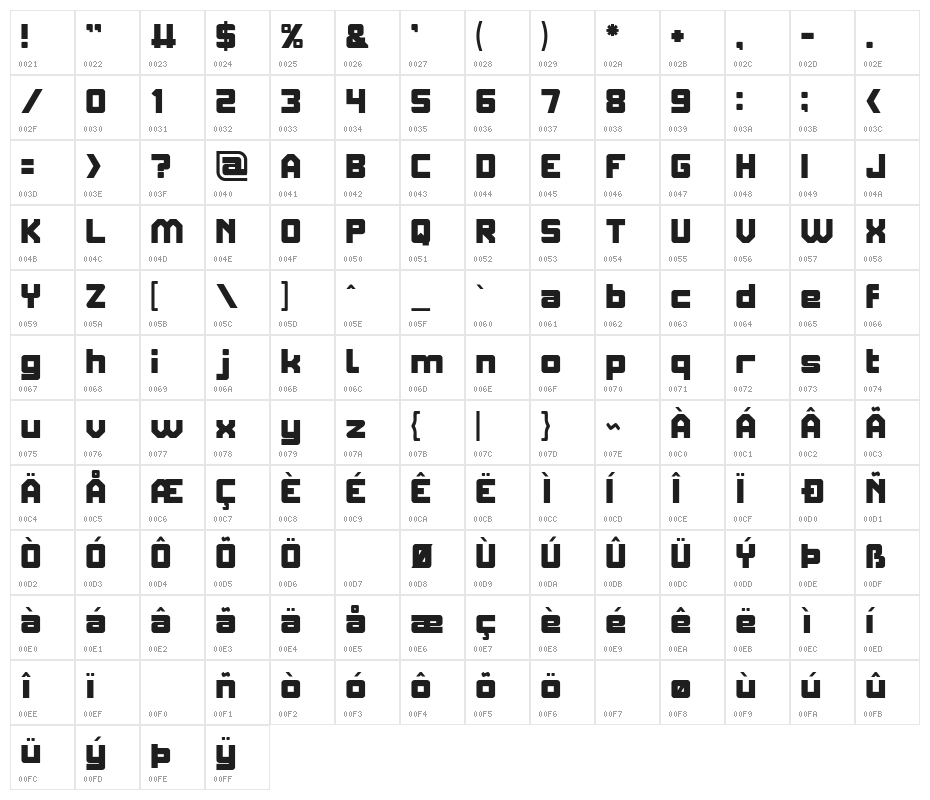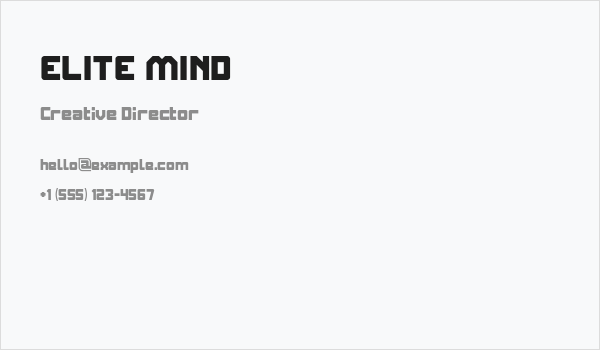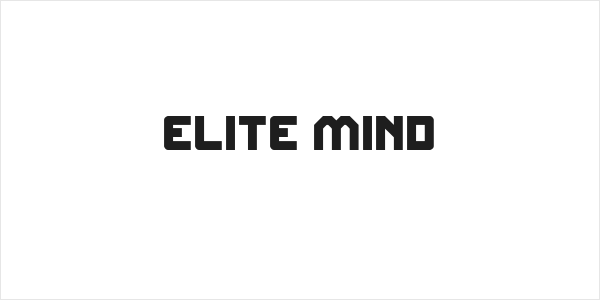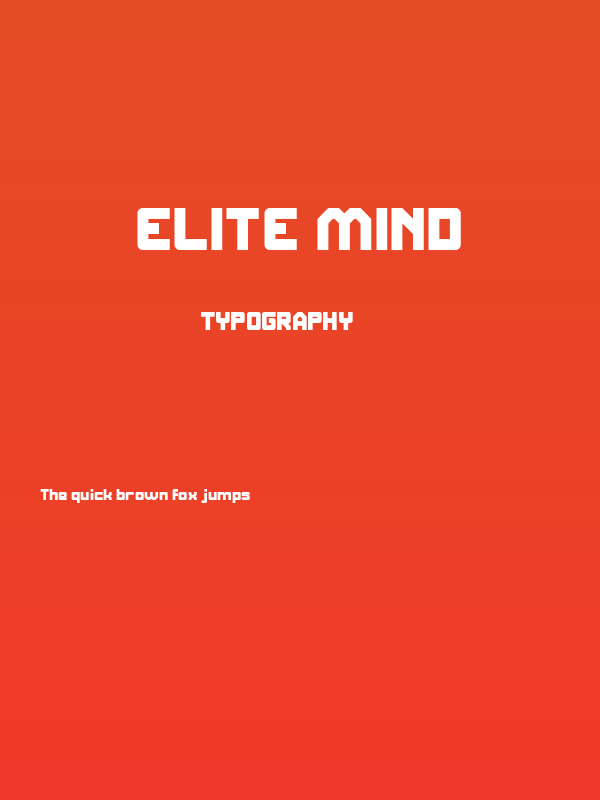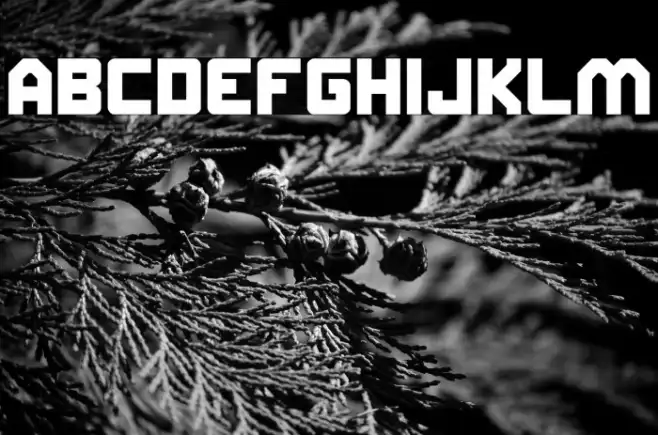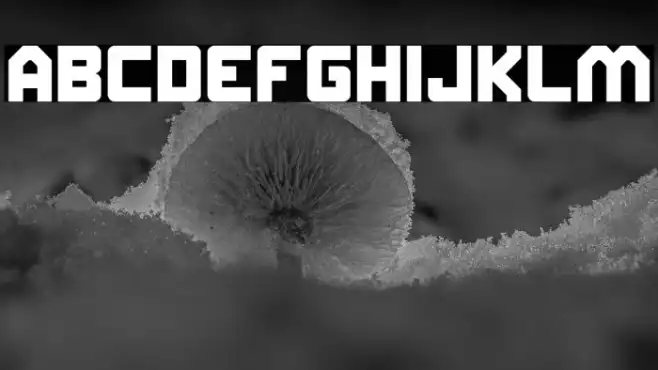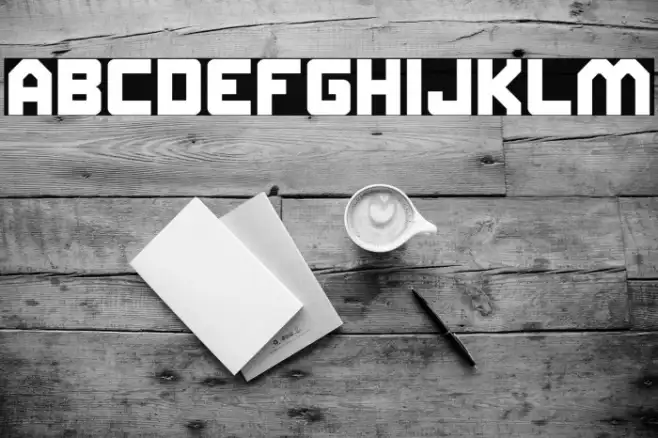
ELITE MIND Font
ELITE MIND Description
This font features a bold, geometric design with a strong, modern aesthetic. The characters are constructed with thick, uniform strokes, giving them a robust and impactful appearance. The angular shapes and sharp edges contribute to a futuristic and industrial feel. The uppercase and lowercase letters maintain a consistent style, with a slight variation in the lowercase set to enhance readability. The numerals and special characters are designed to match the overall boldness and geometric structure, ensuring a cohesive look across all text elements.
| Proposed Projects | Ideal for technology branding, video game titles, posters, and futuristic design projects. |